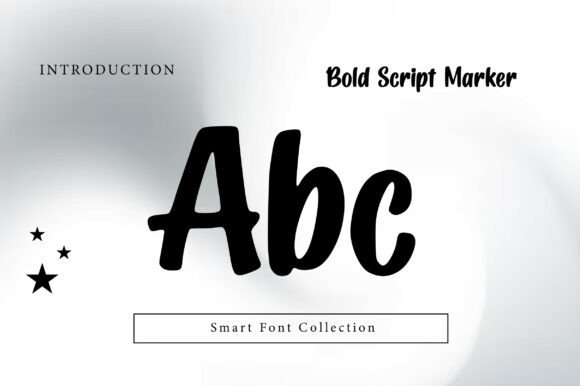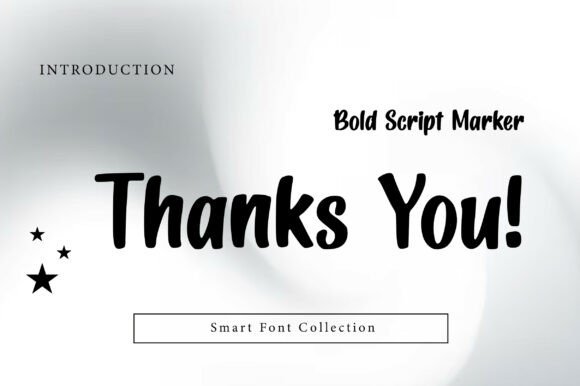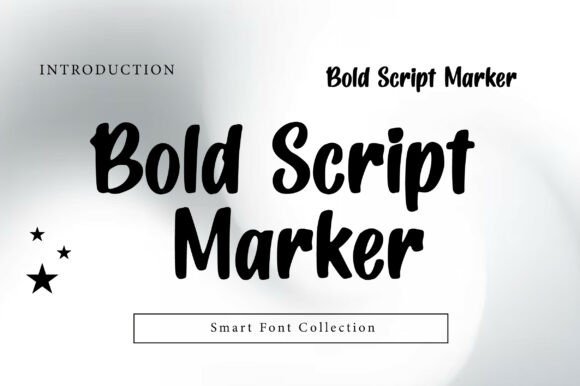
Introducing Bold Script Marker Font: Elevate Your Designs with Confidence and Flair
In the world of typography, few fonts manage to convey the perfect blend of confidence, friendliness, and expressiveness. However, Bold Script Marker Font achieves just that, making it an indispensable asset for designers, crafters, and anyone looking to add a personal touch to their projects. This thick, energetic handwritten marker script font is designed to bring a casual yet bold aesthetic to a wide range of applications, from logos and branding to social media graphics, quotes, and modern headline typography.
The Essence of Bold Script Marker
At its core, Bold Script Marker is a font that exudes energy and smoothness. Its bold weight and confident strokes are reminiscent of marker pen writing, offering a modern and dynamic look. The font’s smooth curves provide a fluidity that makes it highly readable, even at larger sizes, ensuring that your messages are conveyed with clarity and style.
One of the defining features of Bold Script Marker is its unique blend of casual brush-pen flow with bold weight. This combination gives the font its distinctive look, making it perfect for projects that require a touch of personality and handcrafted feel. Whether you’re designing a logo, creating a poster, or crafting a social media graphic, this font adds a level of sophistication and approachability that engages audiences.
Applications of Bold Script Marker Font
The versatility of Bold Script Marker is one of its most compelling attributes. Its applications span a wide range of creative and commercial projects:
• Logos and Branding: Make a bold statement with your brand identity. The font’s confident and energetic vibe is perfect for creating memorable logos and branding materials.
• Posters and Flyers: Draw attention with eye-catching headlines and messages. The bold nature of the font ensures your posters and flyers stand out.
• Social Media Graphics: Elevate your social media presence with engaging and readable graphics. The font’s friendly and approachable feel makes it ideal for connecting with your audience.
• Quotes and Typography: Add a personal touch to quotes and typographic artworks. The smooth curves and bold strokes bring a modern and dynamic look to your projects.
• Packaging and Apparel: Give your products a unique and stylish look. The font’s handcrafted vibe and bold appearance make it perfect for product packaging and apparel designs.
Why Choose Bold Script Marker?
Choosing Bold Script Marker for your projects comes with several benefits:
• Expressive and Friendly: The font’s design is highly expressive and friendly, making it perfect for projects that require a personal touch.
• Highly Readable: Despite its bold nature, the font maintains high readability, ensuring your messages are conveyed clearly.
• Handcrafted Vibe: The font retains a handcrafted feel, adding a level of authenticity and uniqueness to your designs.
• Versatility: Its wide range of applications makes Bold Script Marker a versatile addition to any designer’s toolkit.
Bold Script Marker Font is more than just a typeface; it’s a tool for designers and crafters to express confidence, friendliness, and creativity. Its unique blend of bold weight, smooth curves, and casual brush-pen flow makes it an excellent choice for a wide array of projects. Whether you’re looking to make a bold statement with your branding, add a personal touch to your packaging, or elevate your social media graphics, Bold Script Marker is the perfect companion. Embrace the energy and expressiveness of Bold Script Marker and take your designs to the next level.